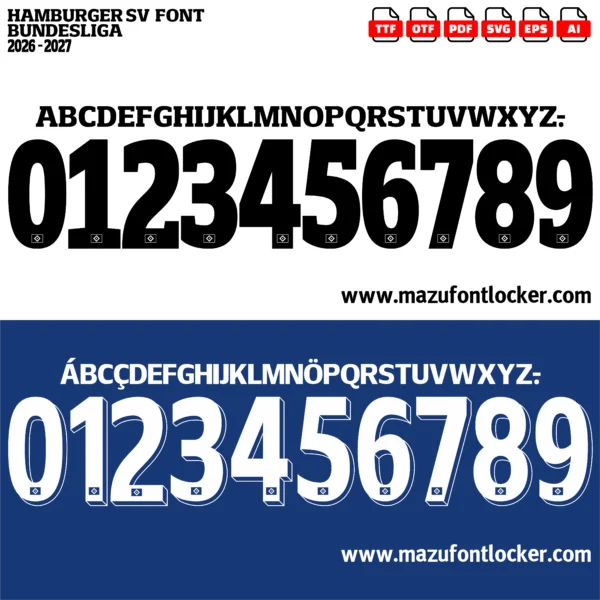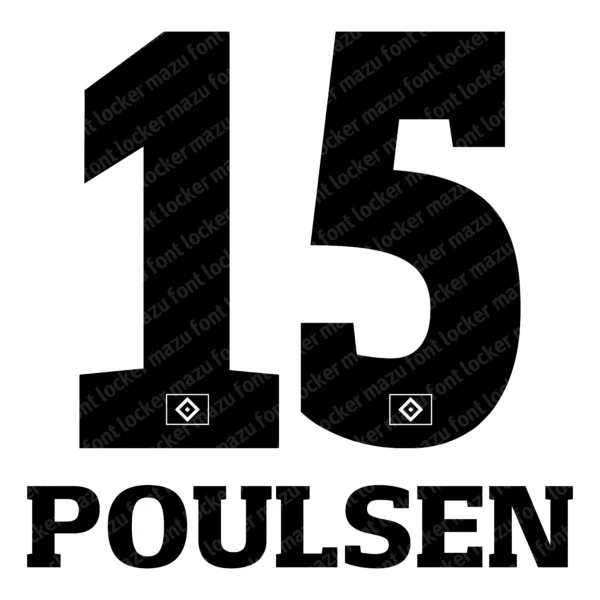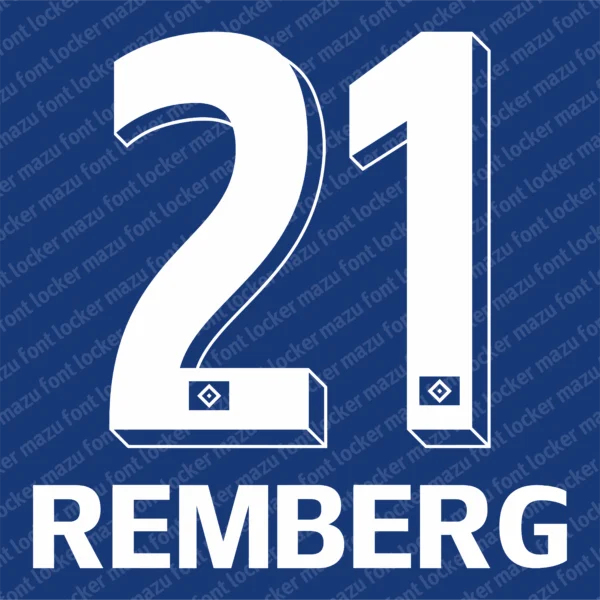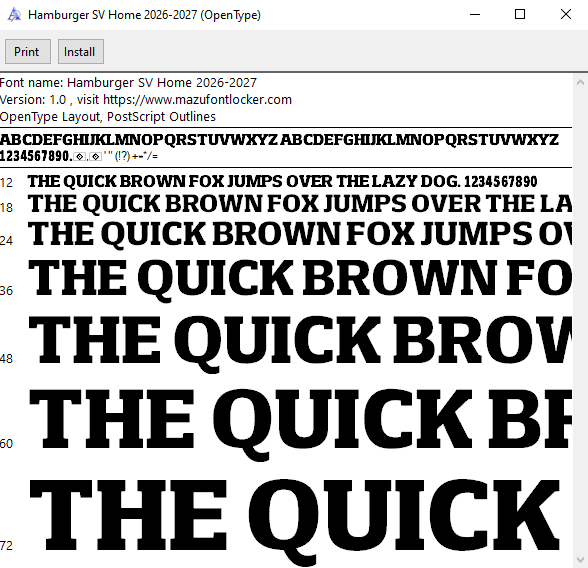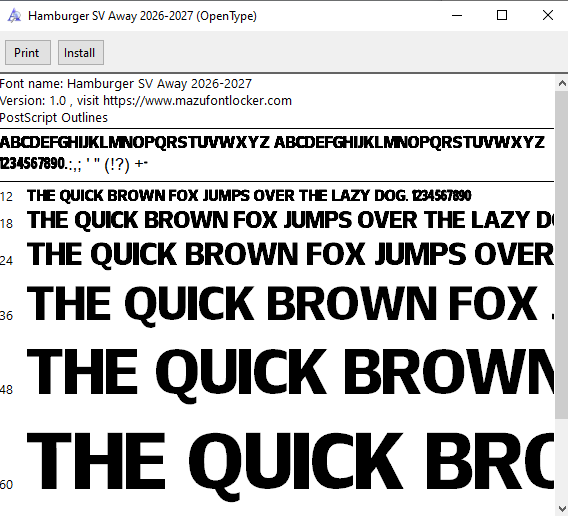
Hamburger SV 2026-2027 Font Vector – Stunning Rothosen Legacy
This font captures the powerful, precision-crafted lettering inspired by Hamburger SV’s iconic blue-and-white identity, proud Hamburg heritage, legendary Rothosen tradition, and fearless football spirit — delivering premium authenticity and explosive match-day energy for professional jersey mockups, football graphics, sports branding, fan designs, and high-end creative projects.
Hamburger SV 2026-2027 Font Vector – Stunning Rothosen Red & White Typeface
The Hamburger SV 2026-2027 Font Vector is a premium typeface that accurately recreates the distinctive match lettering associated with Hamburger SV during the 2026-2027 football season. This high-quality vector font kit captures the bold, clean, and instantly recognizable typography that perfectly complements the club’s iconic red, white, and blue identity.
Designed for professional designers, football enthusiasts, jersey collectors, and passionate Hamburger SV supporters, the Hamburger SV 2026-2027 Font Vector delivers exceptional authenticity for creating realistic jersey mockups, football merchandise, social media graphics, match posters, squad designs, and custom fan artwork. Every character has been carefully recreated to reflect the powerful and precise visual style of one of Germany’s most historic football clubs.
Why Choose Hamburger SV 2026-2027 Font Vector
This font stands out thanks to its precise vector construction and authentic club-inspired styling. Every letter and numeral has been meticulously recreated to match the distinctive football lettering aesthetic associated with Hamburger SV during the 2026-2027 season and its domestic campaign.
Whether you’re producing professional football kit templates, custom jersey concepts, or eye-catching football content, the Hamburger SV 2026-2027 Font Vector delivers a genuine match-ready appearance inspired by the identity of Die Rothosen.
The lettering featured in the Hamburger SV 2026-2027 Font Vector combines clean geometric lines with bold modern proportions. The result is a premium and highly readable typeface that reflects Hamburger SV’s proud football heritage, iconic red and white colors, distinctive blue accents, Hamburg identity, and passionate fanbase.
- Complete uppercase A–Z alphabet and numbers 0–9 in authentic Hamburger SV 2026-2027 inspired style
- Special Hamburger SV badge glyph – Press the “:” (Colon) key to insert the club badge
- Create authentic Hamburger SV 2026-2027 home and away jersey mockups
- Build modern football graphics celebrating Die Rothosen and their 2026-2027 campaign
The Hamburger SV 2026-2027 Font Vector is inspired by the distinctive football typography and visual identity associated with this campaign, making it an excellent choice for designers creating custom jersey concepts, football posters, squad graphics, matchday artwork, and fan-made projects.